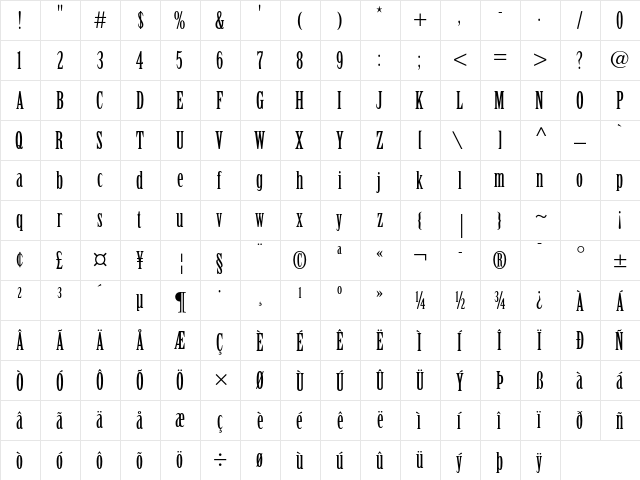
Birch Std Regular
| Designer | Kim Buker Chansler |
Design Context for Birch Std Typeface
Birch Std takes a measured approach to typography — its balanced proportions and neutral character make it a reliable workhorse for both digital and print work.
Pro Tip: Pair Birch Std with a font of contrasting weight or personality to build a more expressive typographic hierarchy.